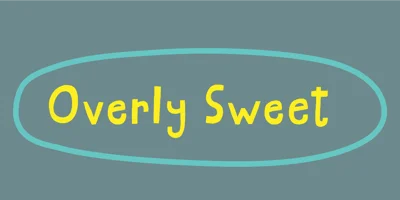
Overly Sweet Font is perfect for candy shop branding, dessert bakery marketing, ice cream parlor signage, sweet confectionery packaging, children's birthday party decorations, and indulgent treat advertising campaigns. Its saccharine character makes it ideal for candy manufacturers, dessert specialty stores, sweet treat food trucks, sugar confectionery brands, and any application requiring deliciously typography that conveys sugary sweetness, indulgent pleasure, and the irresistible appeal of over-the-top confectionery experiences and candy-coated delights.
Overly Sweet Font is exciting because it embodies the indulgent pleasure and sugar-rush excitement of excessive sweetness through deliciously crafted letterforms that drip with the same irresistible appeal as candy-coated confections. Its sugar-laden proportions and confectionery-inspired details evoke the guilty pleasure of indulging in too much sweetness and the joyful abandon that comes from surrendering to sugar cravings, making it perfect for brands celebrating unabashed indulgence. The font's sweet character transforms communications into expressions of confectionery excess.
Overly Sweet Font family includes indulgently-designed weight variations typically featuring Light, Regular, Medium, and Bold options with sugary styling that maintains confectionery authenticity. The family often incorporates candy symbols, sweet ornaments, and dessert elements designed for confectionery applications, providing designers with comprehensive tools for creating authentic, sweetness-focused typographic compositions.
When selecting confectionery indulgence typography solutions, Overly Sweet Font represents an exceptional choice for candy and dessert projects. This delicious typeface brings instant confectionery authenticity to any design, making it invaluable for candy stores, dessert manufacturers, and sweet treat businesses celebrating sugary indulgence. Whether you're developing candy brand packaging, creating dessert shop branding, or designing sweet treat marketing campaigns, Overly Sweet Font provides the sugary appeal and confectionery authenticity essential for satisfying sweet cravings in today's indulgent dessert marketplace.